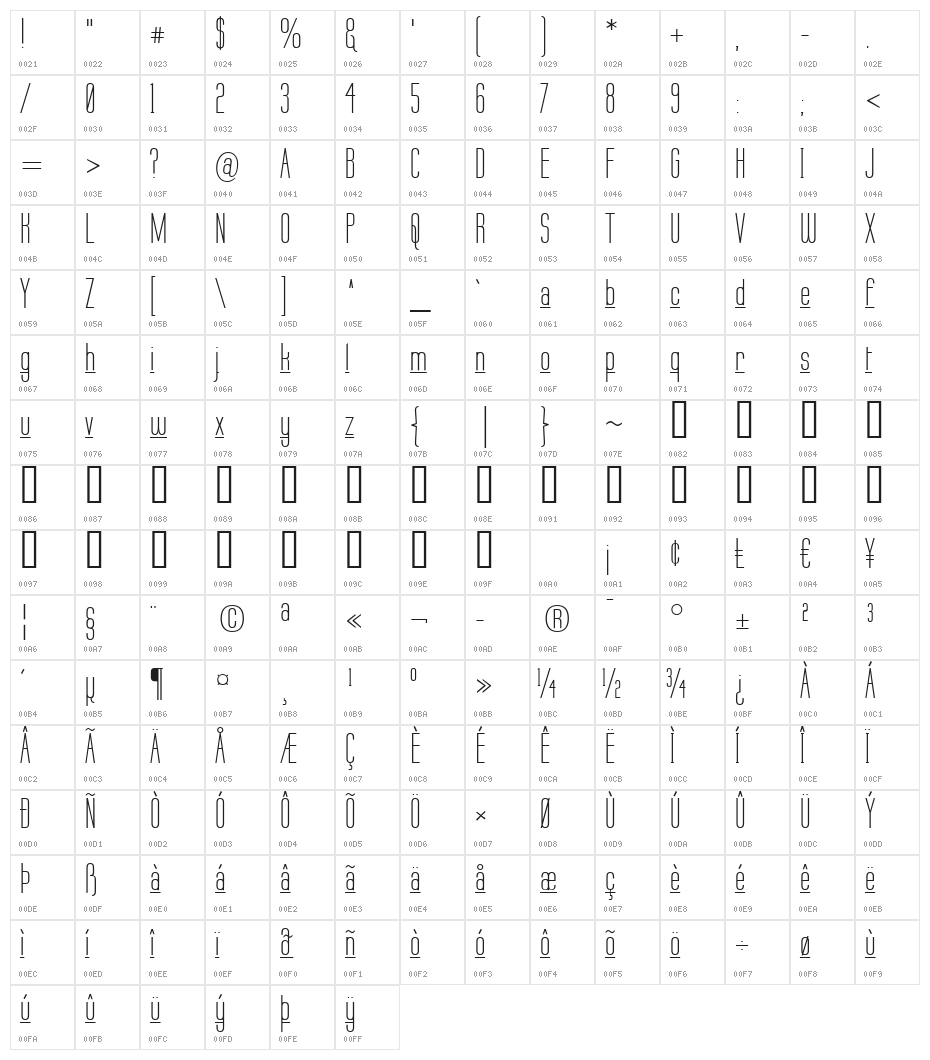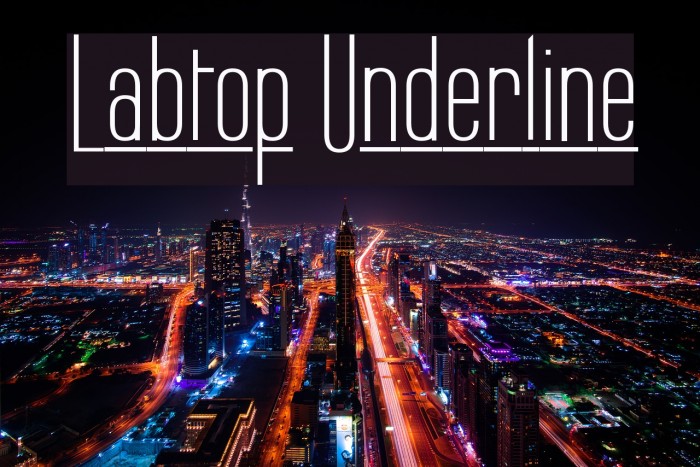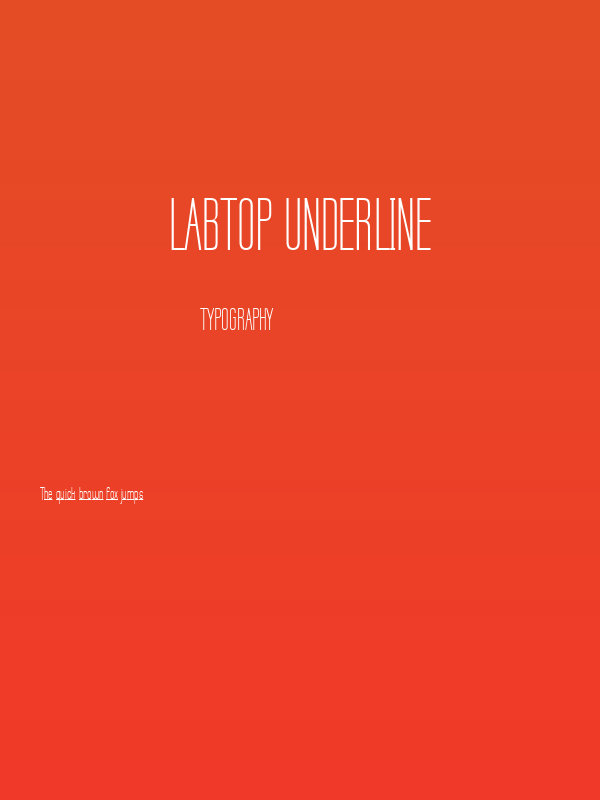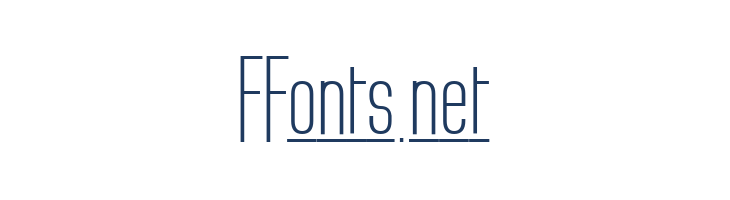
Labtop Underline Font
Labtop Underline Description
This font features a tall, narrow design with clean, straight lines and a modern aesthetic. The uppercase letters are elongated, giving them a sleek and sophisticated appearance. The lowercase letters maintain a similar style, with a consistent height that complements the uppercase set. Numbers and special characters follow the same design principles, ensuring uniformity across all glyphs. The overall look is minimalistic yet striking, making it suitable for contemporary design projects.
Proposed ProjectsIdeal for branding, editorial design, posters, and modern web design projects.